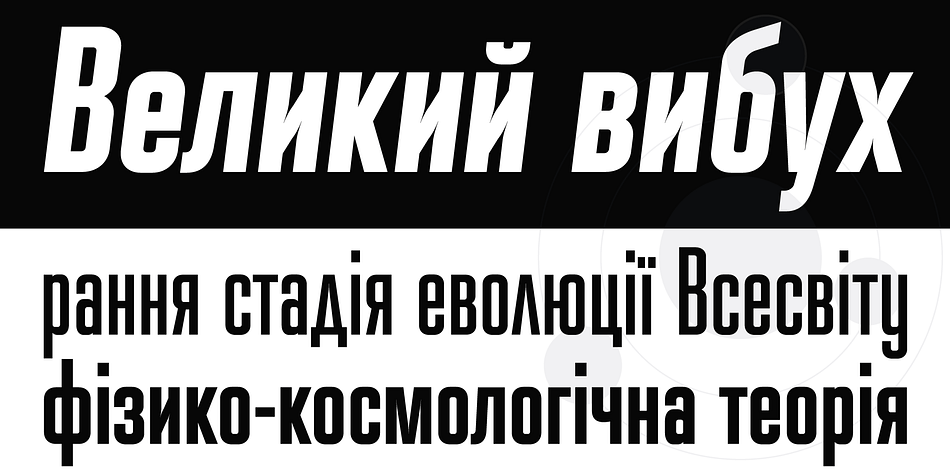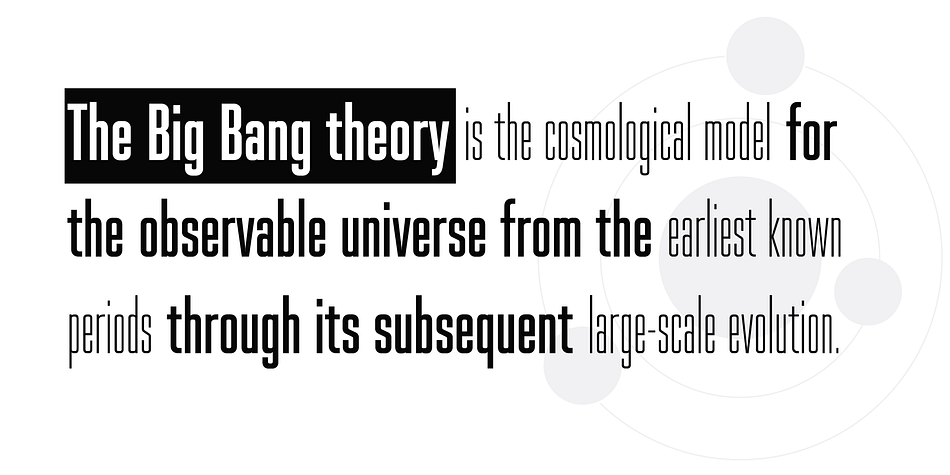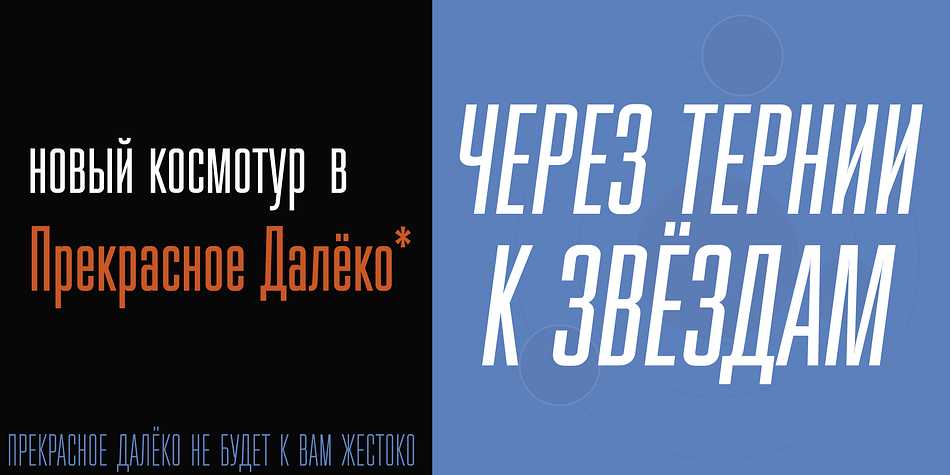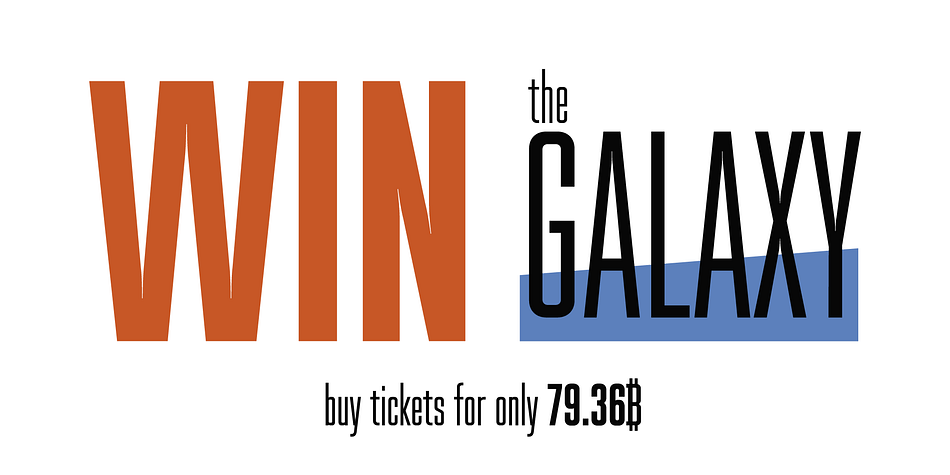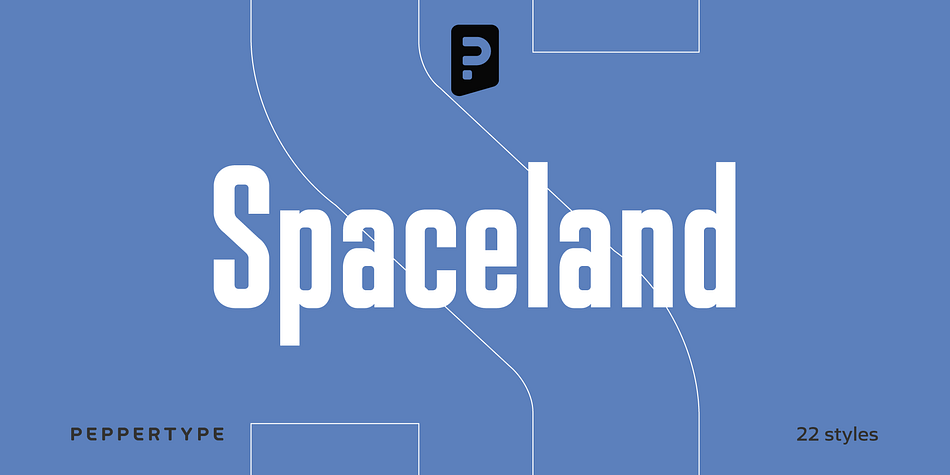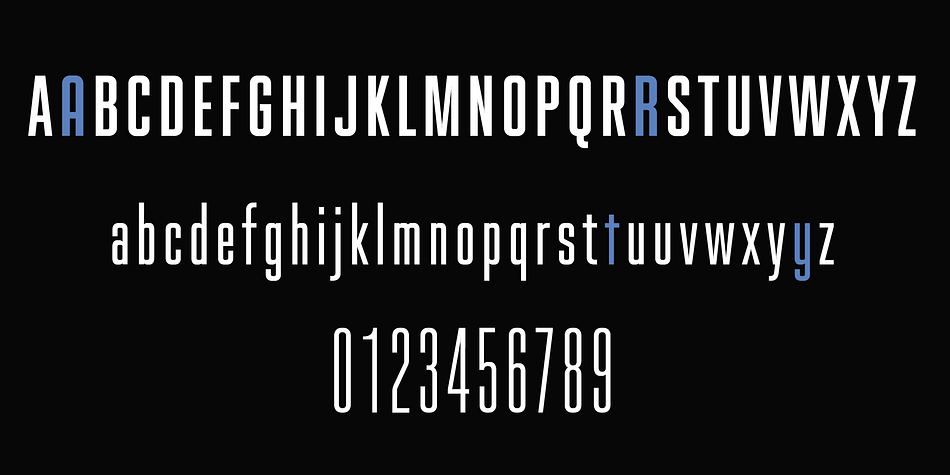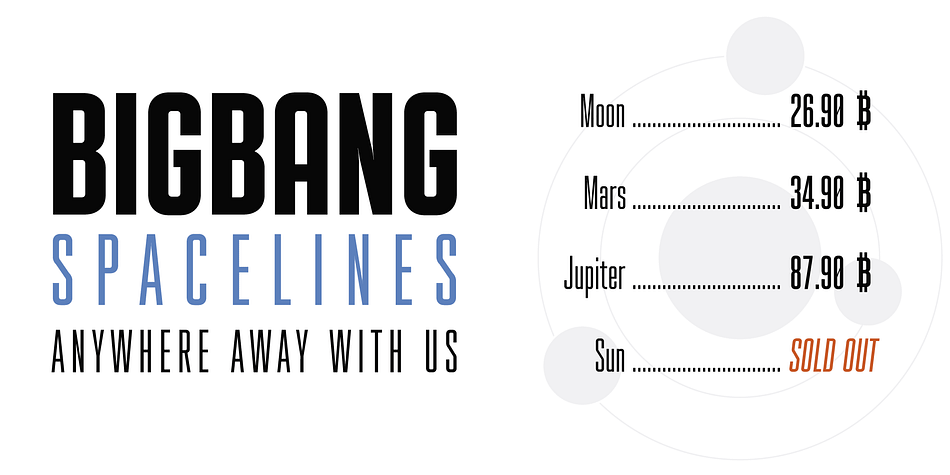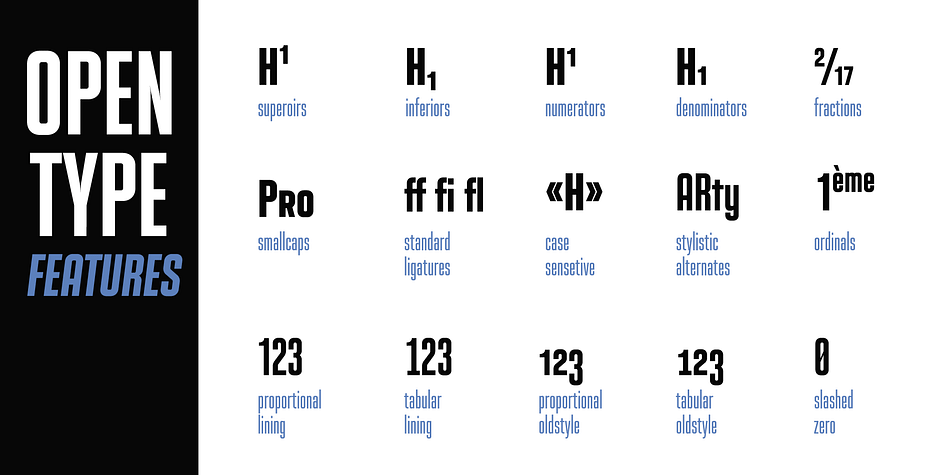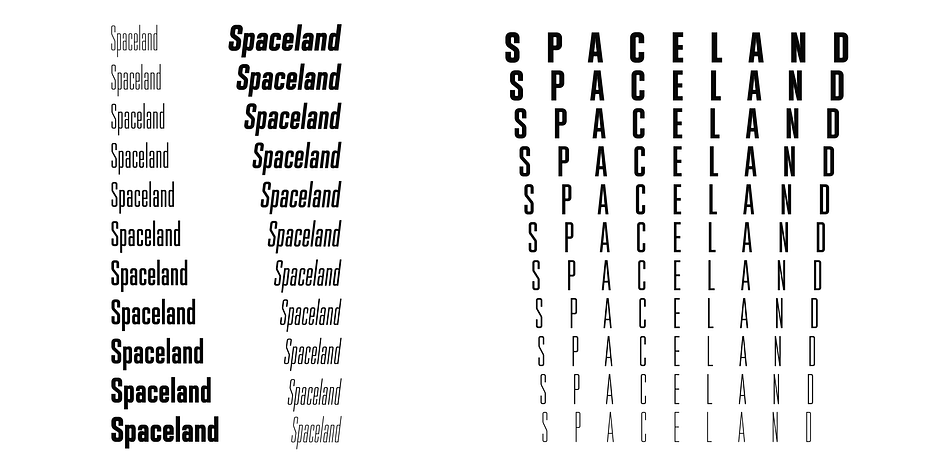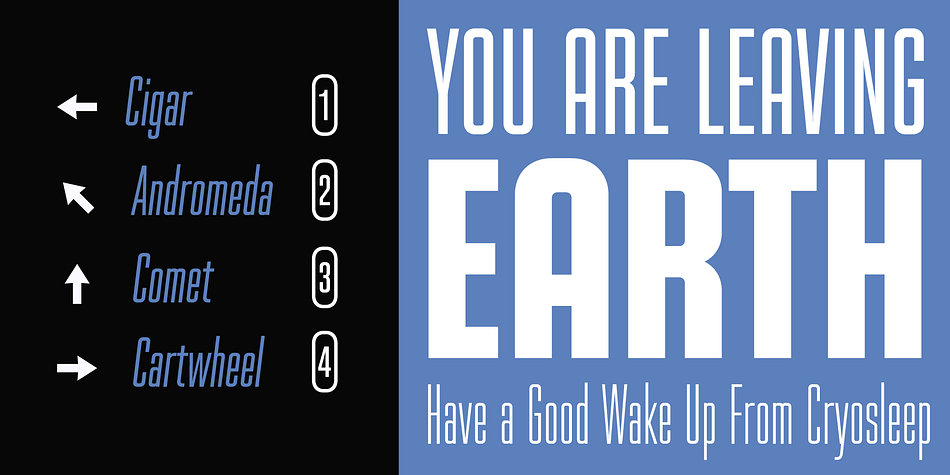
Spaceland is a sans serif font family. This typeface has twenty-two styles and was published by Pepper Type.
Spaceland is a narrow display font family with constant counter width and gradually growing stroke over 11 weights with matching obliques.
Spaceland is a perfect choice for designs that require extra narrow but legible letters, such as movie posters, health warnings, bold titles etc. It has rich language support, including Cyrillic, as well as numerous OpenType features to customize your design.